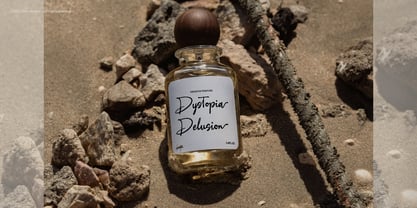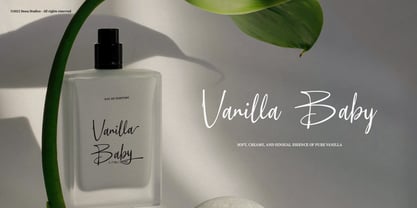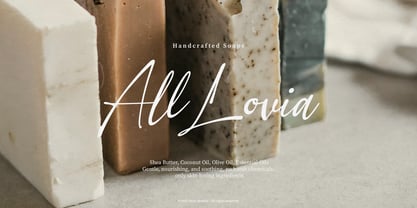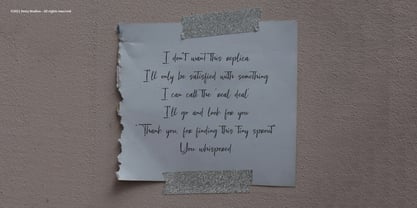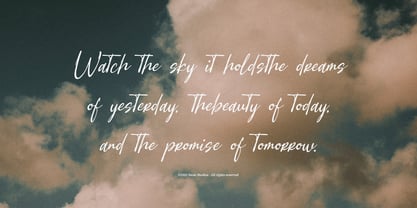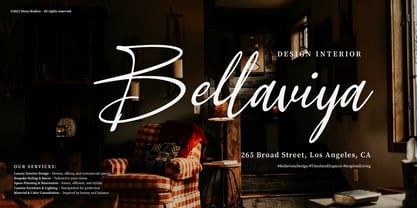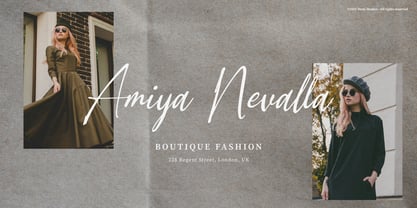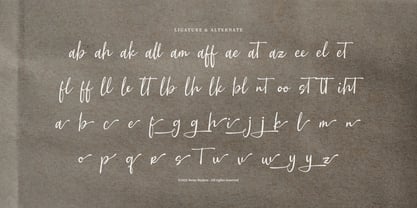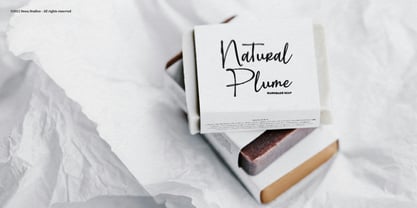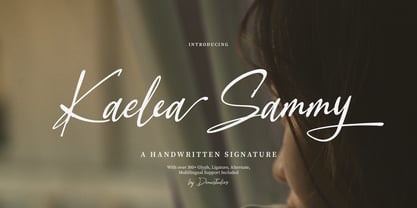
Kaelea Sammy
por Denustudio
A família de fontes Kaelea Sammy foi desenhada por Dede Nugraha e publicada pela Denustudio. Kaelea Sammy contém 2 estilos e opções de pacote familiar. Saiba mais sobre esta família
Kaelea Sammy | Handwritten Signature, from Denustudios, suitable for any projects such as: logos, branding projects, homeware designs, product packaging, mugs, quotes, posters, shopping bags, t-shirts, book covers, name card, invitation cards, greeting cards, label, photography, watermark, special events, and all your other lovely projects that need Handwritten Signature a taste.